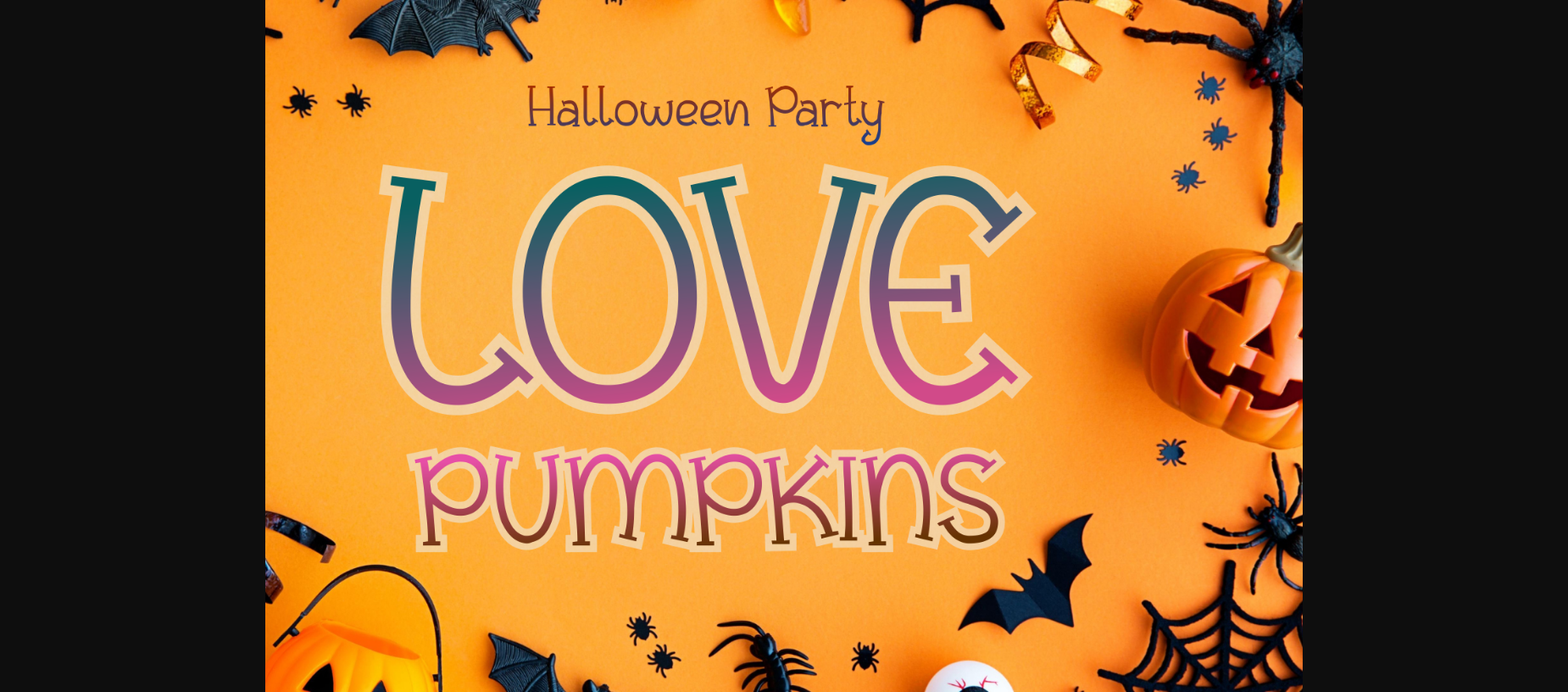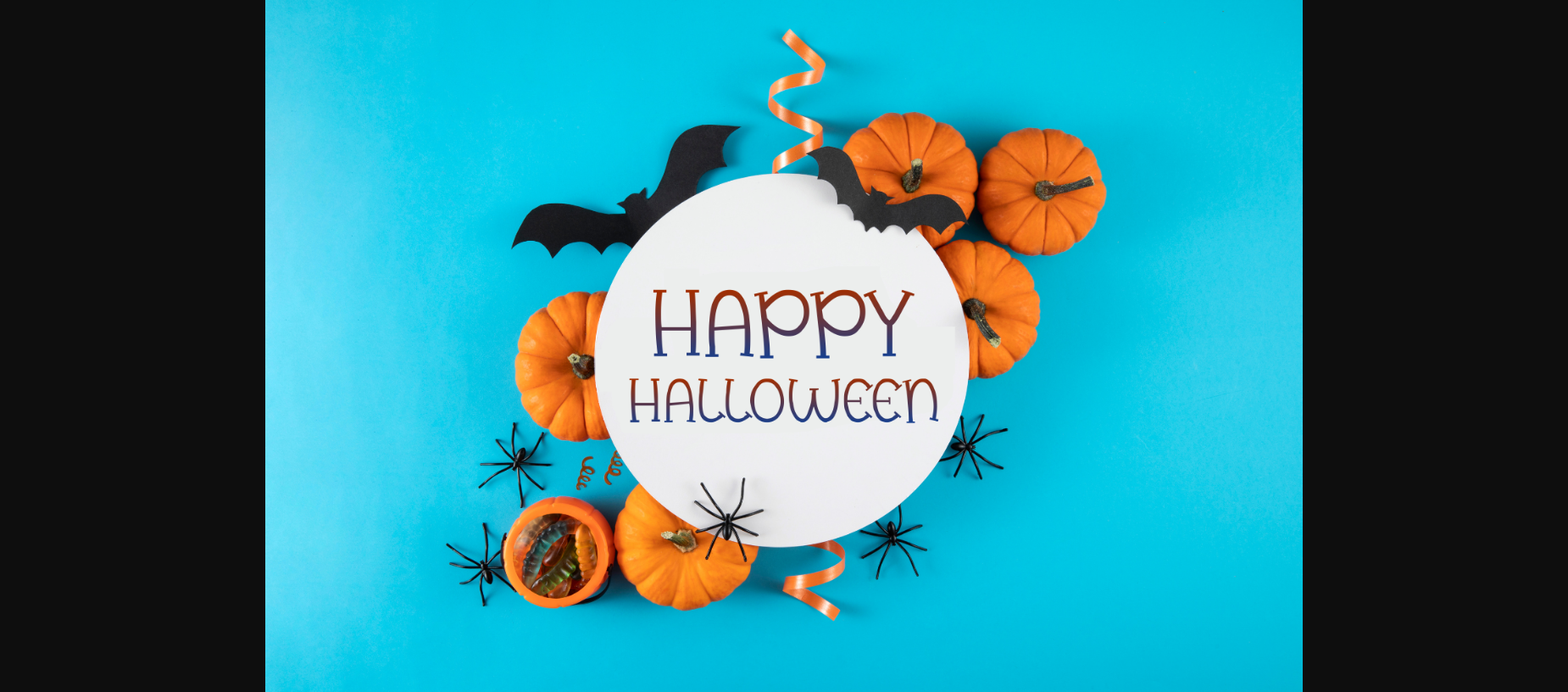
About Love Pumpkins Font
Love Pumpkins is a display font that is cute, bright, and fun. It is perfect for children-themed designs, especially when combined with bright and pastel colors. Add this beautiful display font to each of your creative ideas, and notice how it makes them stand out!